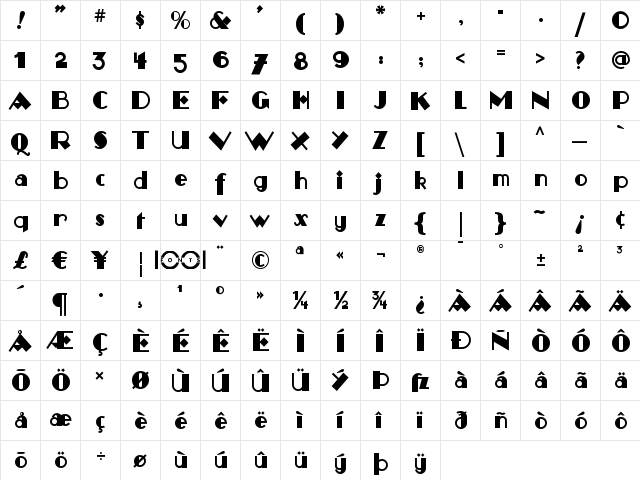
Monkey Fingers NF Regular
| Foundry | Nick's Fonts |
| Designer | Nick Curtis |
Design Context for Monkey Fingers NF Typeface
Monkey Fingers NF is a composed and adaptable typeface that performs quietly and consistently across a wide range of design contexts.